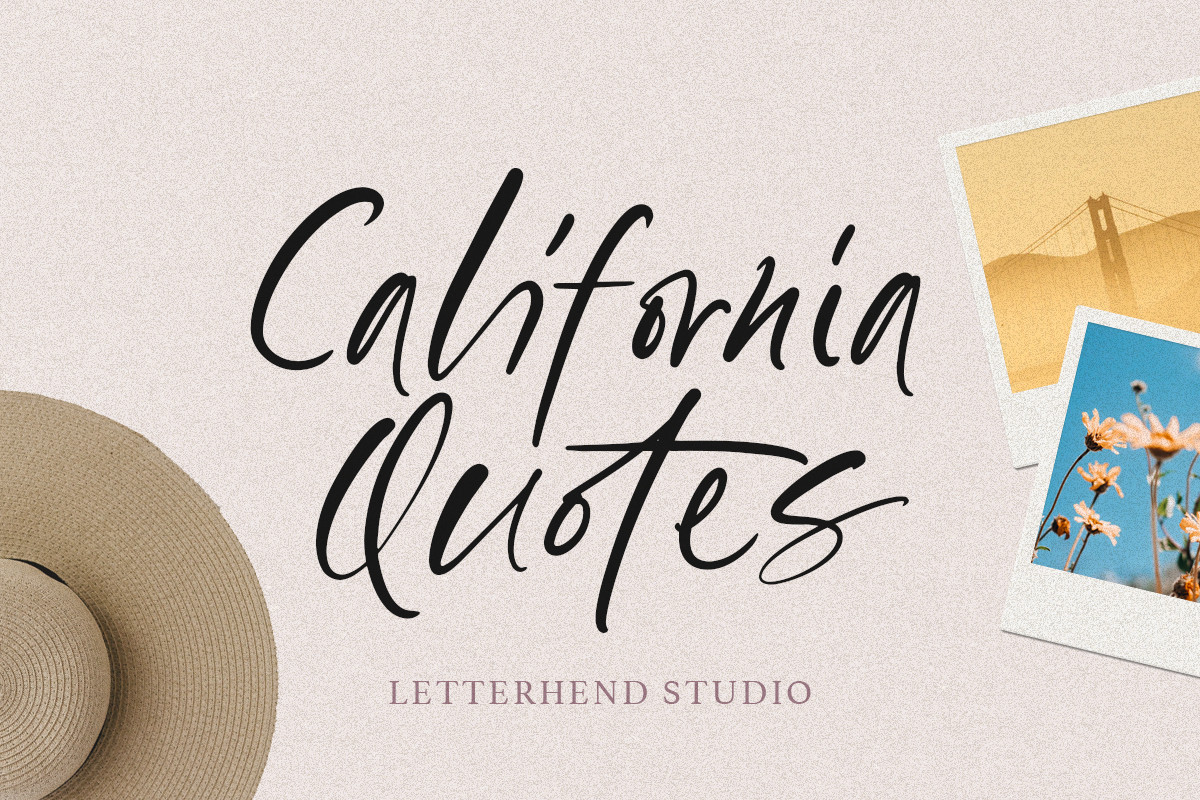
California Quotes Font
California Quotes Font is widely used in inspirational social media graphics, motivational poster designs, lifestyle blog headers, wellness brand communications, beach resort marketing, surf culture branding, laid-back restaurant menus, and positive quote artwork.
California Quotes Font is an exciting typeface that captures the relaxed spirit of West Coast living with its casual elegance and sunny disposition. This font embodies optimism, freedom, and coastal lifestyle, making it perfect for brands that want to convey positivity, authenticity, and the carefree California dream in their uplifting visual communications.
The California Quotes Font family consists of Regular, Bold, Light, Italic, Script, Casual, Condensed, and Beach variants. This sunny collection enables designers to create inspiring typographic experiences that maintain coastal consistency while offering laid-back flexibility for various lifestyle and wellness applications.
The distinctive sunshine of California Quotes Font lies in its ability to convey the effortless optimism and natural beauty of California culture through carefully crafted letterforms that seem to glow with golden state energy. Each character maintains the casual elegance and approachable warmth that reflects the genuine spirit of West Coast living. The font's flowing curves and relaxed proportions create visual freedom that captures the essence of ocean breezes and endless possibilities.
Lifestyle brands and wellness companies choose California Quotes Font for its power to communicate authentic positivity and inspirational living. The typeface works wonderfully in health and wellness branding, motivational content creation, coastal tourism marketing, and lifestyle product communications. Its sunny aesthetic appeals to audiences seeking inspiration, personal growth, and the authentic freedom associated with California living.
The coastal craftsmanship of California Quotes Font includes contextual alternates and inspirational variations that enhance the natural flow of motivational typography while maintaining the positive character essential to wellness communication. These uplifting features ensure that text maintains the optimistic energy and authentic spirit that defines genuine California lifestyle branding while meeting professional standards for commercial applications in the wellness and lifestyle industries.